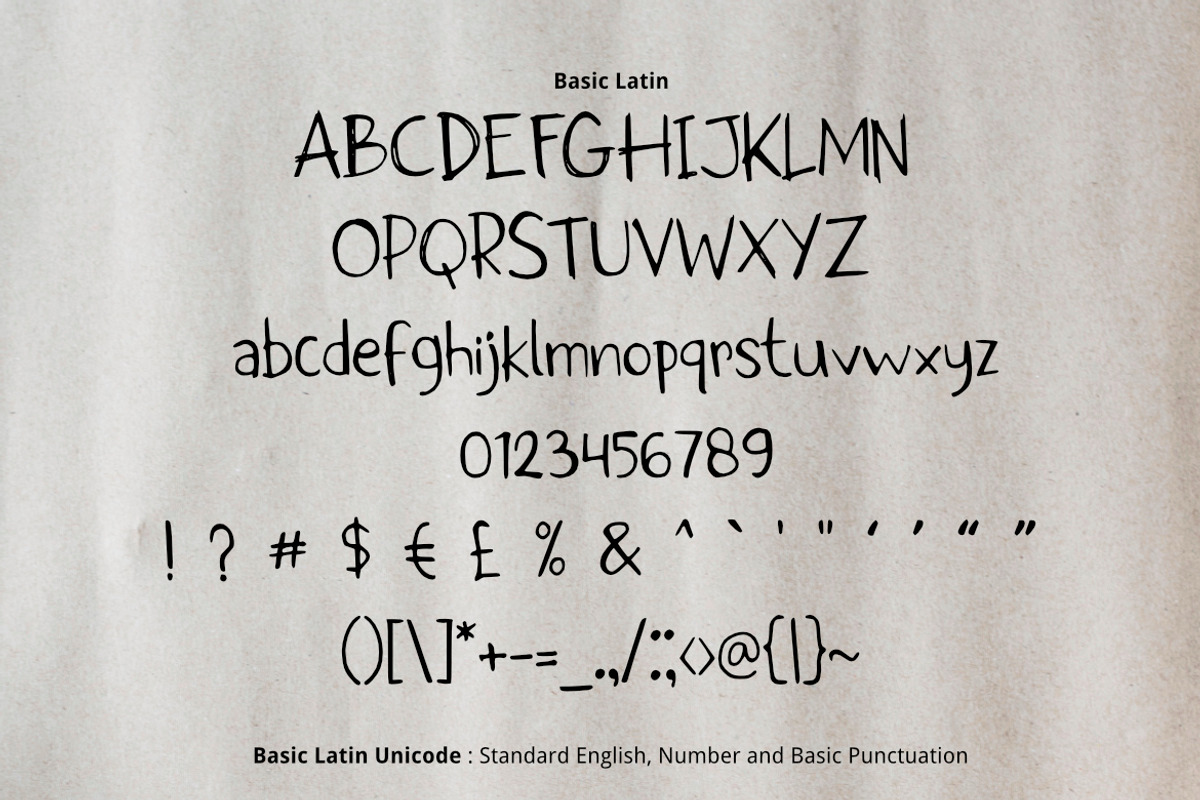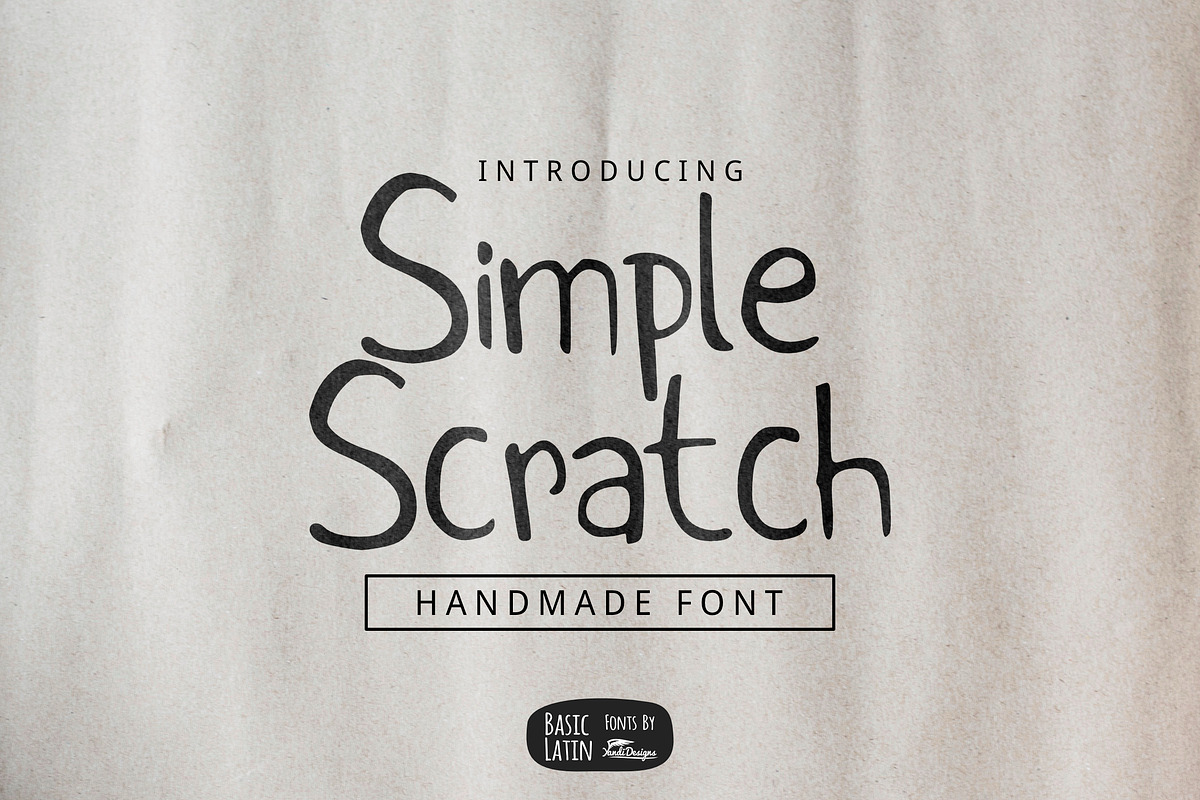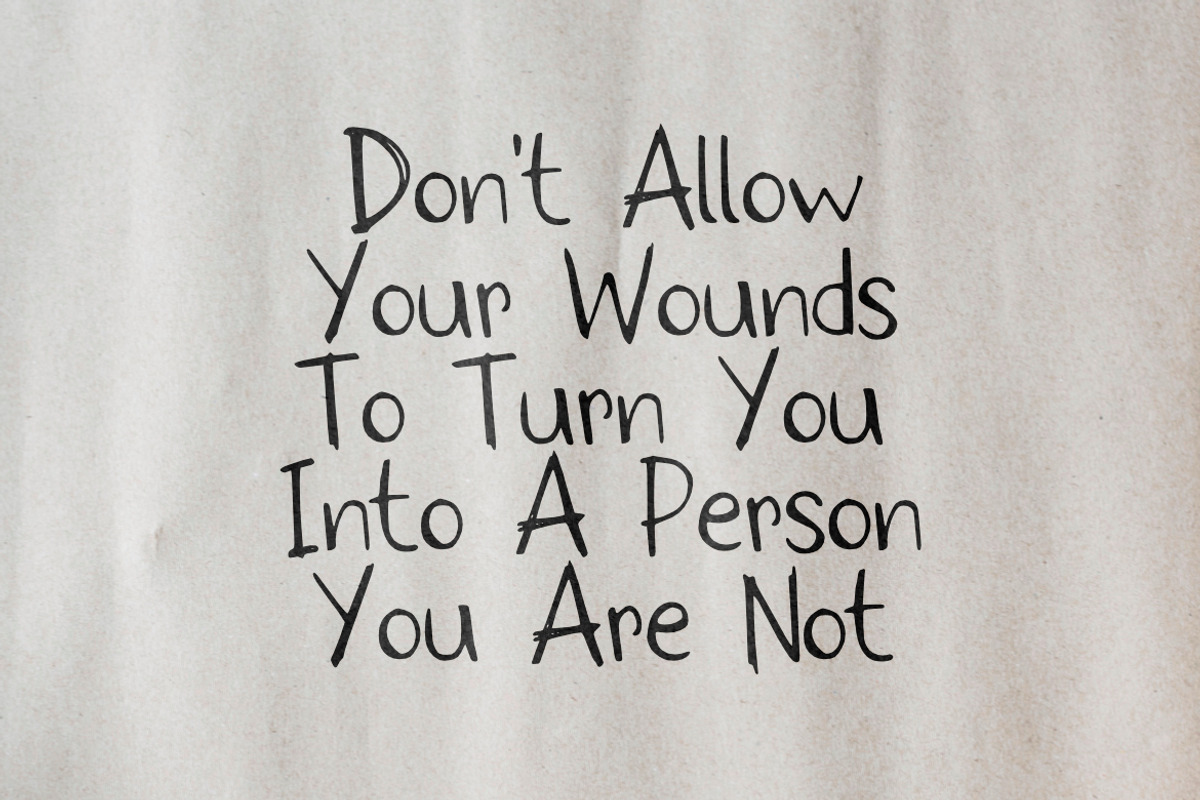
Simple Scratch font is simple cute multipurpose handmade font , suitable for many project children book, quotes, logo , heading , title etc.
Simple Scratch Font (70% OFF) by YandiDesigns fits naturally into Branding, posters, packaging, typography.